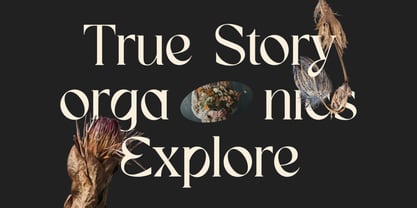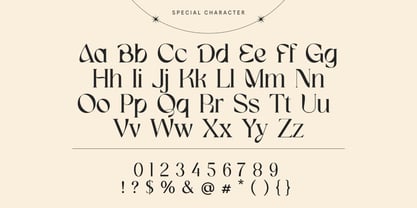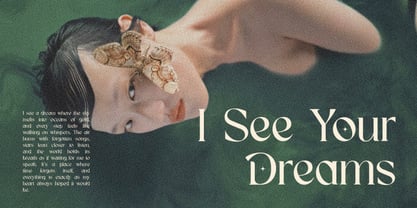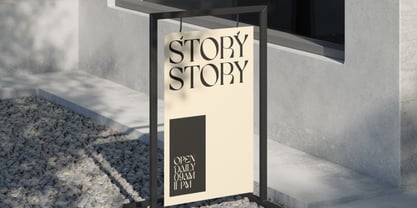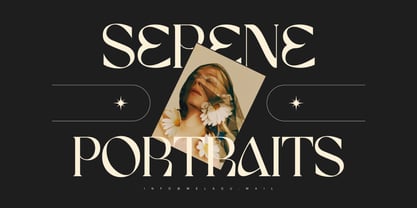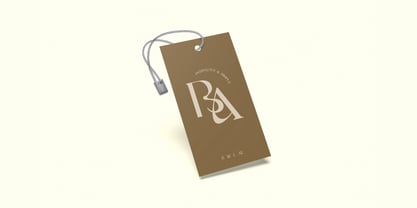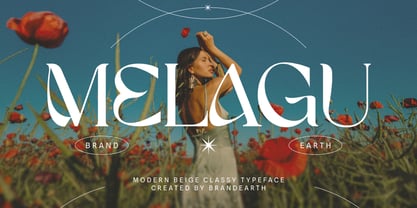
Melagu
by Brandearth
The Melagu Font Family was designed by Moch Rasjid Wiyono and published by Brandearth. Melagu contains 1 styles. More about this family
Melagu is a modern classy serif typeface that blends timeless elegance with contemporary refinement. Designed with high-contrast strokes, graceful curves, and distinctive serif details, Melagu delivers a sophisticated yet expressive character. Melagu is highly relevant for fashion brands, beauty and skincare packaging, luxury boutiques, editorial magazines, wedding invitations, lifestyle blogs, and premium social media branding. Its refined elegance and expressive serif details make it perfect for projects that aim to communicate sophistication, femininity, and timeless style across print and digital platforms.
Designers: Moch Rasjid Wiyono
Foundry: Brandearth